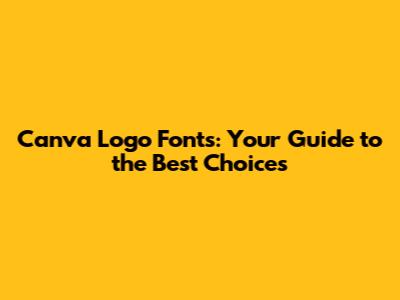
Hey everyone! Ever wondered which Canva logo fonts are the best to use? Logo design is super important, right? It's like the first handshake with your audience. A good logo grabs attention, tells your brand's story, and sticks in people's minds. Canva makes it easy to design logos, even if you're not a design pro. But with tons of fonts available, picking the right ones can feel overwhelming. Don't sweat it, though! We're diving into the world of Canva logo fonts to find the perfect fit for your brand. In this article, we'll explore some top-notch font families, understand what makes a font work well in a logo, and even give you tips on how to pair fonts like a pro. Whether you're a startup owner, a social media guru, or just someone who loves creating, this guide will help you choose Canva logo fonts that make your logo shine. So, buckle up, grab your coffee, and let's get started on this exciting journey to find the best fonts for your logo design! We're going to make sure your logo not only looks good but also effectively communicates your brand's message. That's the key, right? To create a lasting impression.
Understanding the Basics: Why Font Choice Matters
Alright, before we get to the fun part of choosing Canva logo fonts, let's talk about why your font choice is such a big deal. Think of your logo as your brand's visual ambassador. It's the first thing people see and often the most memorable. The font you choose is a huge part of that first impression. It sets the tone, communicates your brand's personality, and even subtly influences how people perceive your business. Think about it: a sleek, modern font suggests innovation and cutting-edge technology, while a playful, handwritten font might make you think of a local bakery or a craft store. The wrong font, though, can send the wrong message. Imagine a law firm using a bubbly, cartoonish font – it just doesn't fit! So, when you're looking at Canva logo fonts, you're not just picking letters; you're crafting an identity. Your font choice needs to align with your brand's values, target audience, and overall aesthetic. Are you aiming for professionalism, fun, sophistication, or something else entirely? Your font needs to reflect that. It needs to be readable at all sizes, work well across different platforms, and, of course, look great! We're talking about everything from business cards and websites to social media profiles and product packaging. Basically, selecting Canva logo fonts is an investment in your brand's future.
The Role of Font Styles and Types
Let's get a bit more specific. Fonts come in different families and styles, and understanding these will help you narrow down your choices when selecting Canva logo fonts. The main font categories you'll encounter are serif, sans-serif, script, and display fonts. Serif fonts have those little decorative strokes (called serifs) at the end of each letter, giving them a classic, traditional feel. They're often used for logos that want to convey a sense of authority, trust, or history. Sans-serif fonts, on the other hand, lack those serifs, giving them a clean, modern look. They're great for logos that want to appear contemporary, minimalist, or tech-savvy. Script fonts mimic handwriting, ranging from elegant calligraphy to casual brushstrokes. They're perfect for brands that want to communicate creativity, personality, or a touch of luxury. Display fonts are unique and eye-catching, designed specifically for headlines and logos. They can be bold, quirky, or highly stylized, adding a lot of character to a logo. Beyond these categories, you also have various font styles, such as bold, italic, and condensed. These variations allow you to add emphasis or change the overall look of your logo. The key is to choose Canva logo fonts that not only look good individually but also work together to create a cohesive and appealing design. The best font will depend on your brand's personality and the message you want to communicate, but by understanding these different types, you'll be one step closer to making the right choice.
Top Font Families for Canva Logo Design
Now, let's get to the good stuff: the best Canva logo fonts! There's a wide variety of fonts available, but here are some of the most popular and versatile font families you can find on Canva. These fonts have proven to be reliable choices for many brands, offering a blend of style, readability, and impact. We'll be breaking down each font family, its characteristics, and why it might be a good fit for your logo. When you're choosing, keep in mind your brand's personality and the overall message you want to send. Remember, a logo should be memorable and effective, and the right font plays a big part in achieving that.
Open Sans
Open Sans is a humanist sans-serif font, meaning it has a friendly and approachable feel. It's clean, modern, and highly readable, making it a fantastic choice for a wide range of logos. Open Sans is great because it works well in both headings and body text, and its neutral design means it doesn’t clash with other elements. If your brand wants to appear accessible, trustworthy, and modern, Open Sans is a solid option. It is available within Canva logo fonts.
Montserrat
Montserrat is another sans-serif font, but with a slightly more geometric design. Inspired by the urban typography of the Montserrat neighborhood in Buenos Aires, this font family has a distinctive, stylish look. It's a versatile font that works well in many applications, from tech companies to fashion brands. Montserrat offers a wide range of weights, allowing for flexibility in logo design. Whether you want a bold, strong look or a more subtle, refined appearance, Montserrat can deliver. It is also available in Canva logo fonts, making it easy to create a professional and memorable logo.
Lato
Lato is a sans-serif font with a friendly, approachable feel, yet also maintains a sense of professionalism. It's known for its semi-rounded details, which give it a warm and inviting appearance. Lato is a great choice for brands that want to appear both modern and friendly, making it a good fit for businesses in various industries. The font’s legibility and versatility make it a popular choice. You can find Lato among the Canva logo fonts.
Playfair Display
If you're aiming for a touch of elegance, Playfair Display is a great serif font to consider. It has high contrast, meaning there's a significant difference between the thick and thin strokes of the letters, giving it a sophisticated and stylish appearance. It's especially suited for logos that want to convey a sense of luxury, fashion, or heritage. However, keep in mind that Playfair Display is best used for headlines or short text, as its high contrast can make it less readable in long paragraphs. For creating a polished look, consider Playfair Display from Canva logo fonts.
Roboto
Roboto is a sans-serif font designed by Google. It has a modern, clean look with a slightly mechanical feel, making it great for tech-related brands or companies that want to project a sense of reliability and innovation. It's highly readable and versatile, working well in various sizes and applications. If your brand is tech-focused or seeks a minimalist look, Roboto is one of the effective Canva logo fonts to consider.
Tips for Pairing Fonts in Your Logo
Choosing a font isn't just about picking one; it's also about how you use it. Effective font pairing can make or break a logo. It's about finding two or more fonts that complement each other, creating a visually appealing and cohesive design. When you're selecting Canva logo fonts for your logo, consider these tips to help you create a great design.
Create Contrast
Contrast is key. Avoid pairing two fonts that are too similar, as it can make your logo look messy or uninteresting. Instead, opt for a combination of fonts that have distinct characteristics. For example, you might pair a bold sans-serif font with a delicate serif font. The contrast will make your logo more dynamic and visually appealing. Think about the style, weight, and size of the fonts. Combining a heavy, bold font with a light, thin font creates a great contrast and visual interest. Using contrasting Canva logo fonts makes your design more engaging.